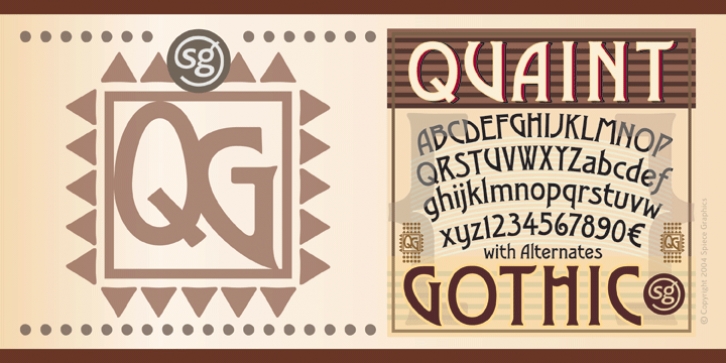
Quaint Gothic SG was published by Spiece Graphics. Quaint Gothic SG contains 1 style.
Distinctively Art Nouveau with a touch of Arts & Crafts, Quaint Gothic is a typographic gem from the late nineteenth century. Also known as Desdemona, this undulating and organic typeface is a versatile and refreshing alternative to many of the font designs on the market today. Quaint Gothic comes complete with an alternate set of caps and a new set of lowercase characters. And for your convenience, a nifty set of small caps and small figures are included in this version. You may also want to access the word-on-a-wave logotypes like "to" and "and" located in the special character slots. They're great for constructing provocative headlines and titles.